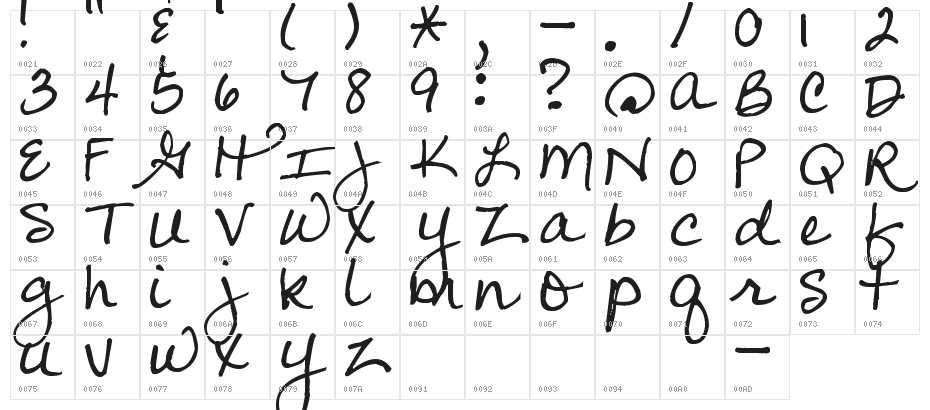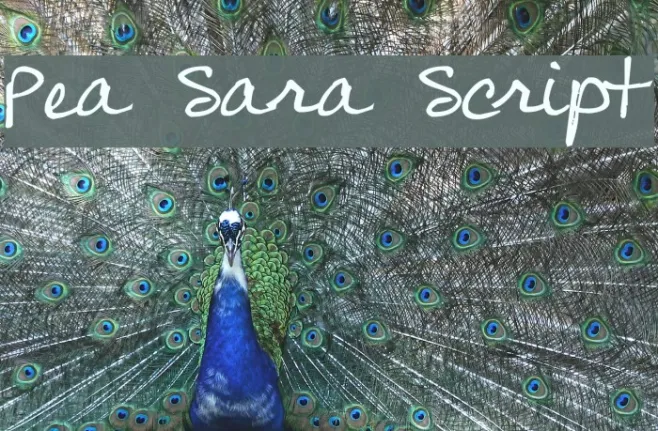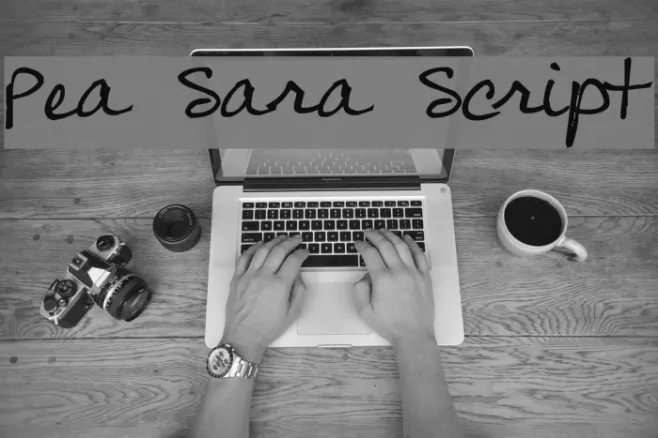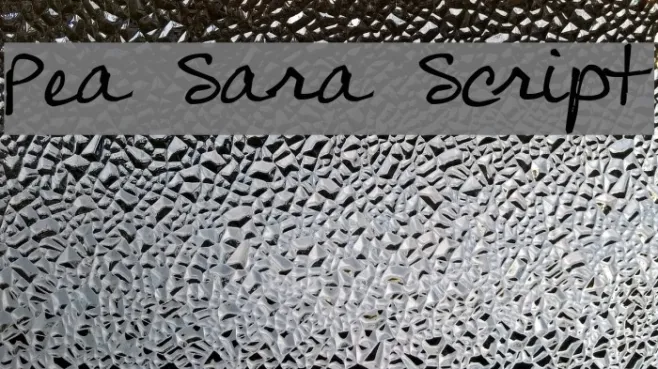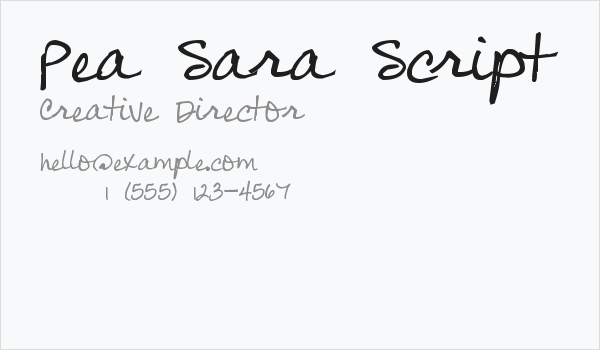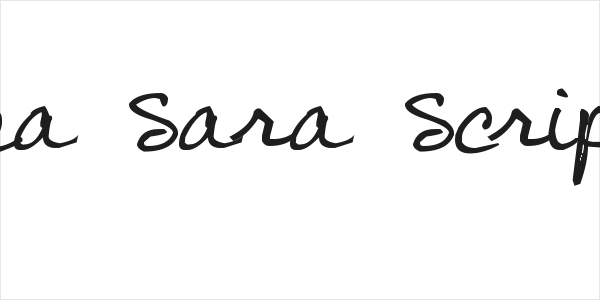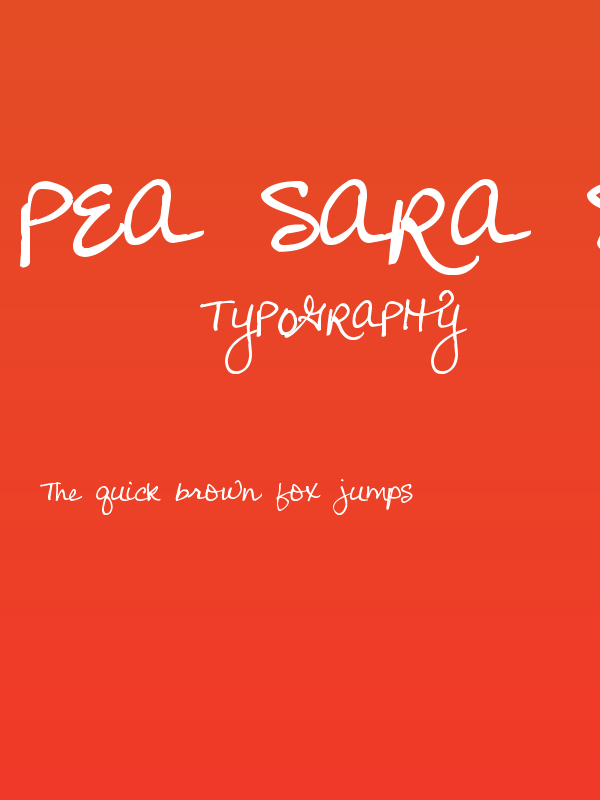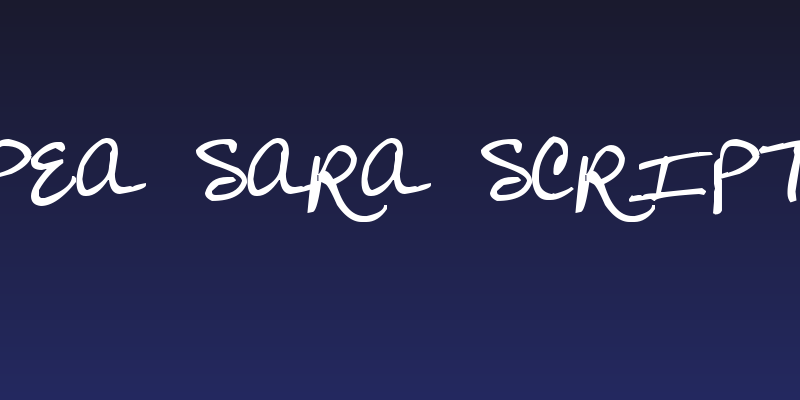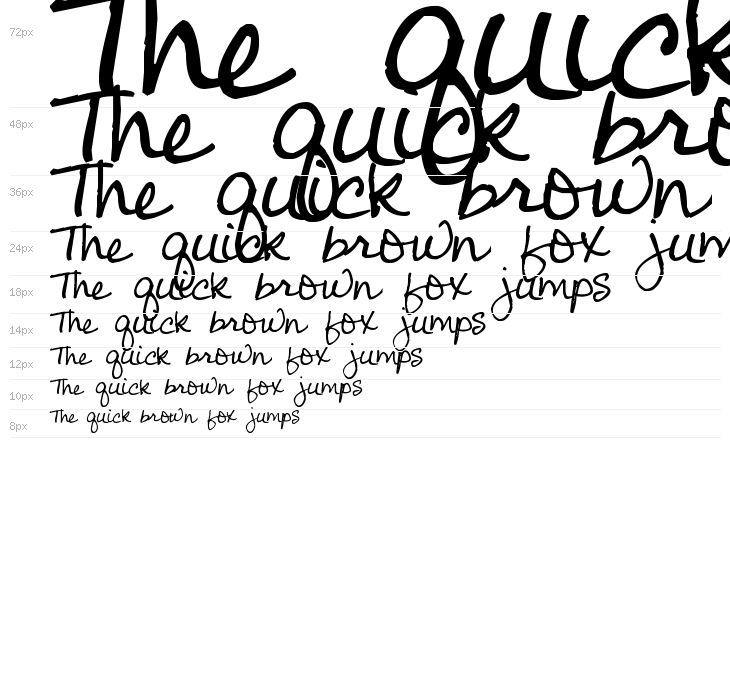
Pea Sara Script Font
Pea Sara Script Description
This font exudes a casual and playful handwritten style, characterized by its flowing and connected letterforms. The uppercase letters maintain a consistent height, while the lowercase letters exhibit a natural, cursive flow. The numbers are bold and slightly rounded, complementing the overall informal aesthetic. Special characters are creatively integrated, maintaining the script's lively and dynamic feel. The strokes are smooth and slightly varied in thickness, adding to the handwritten charm. This font is perfect for projects that require a personal touch, such as invitations, greeting cards, or creative branding.
| Use Case | Invitations, Greeting cards, Personal branding |
| Proposed Projects | Ideal for invitations, greeting cards, personal branding, and creative projects requiring a personal touch. |